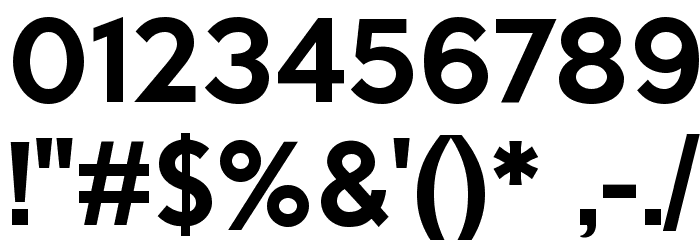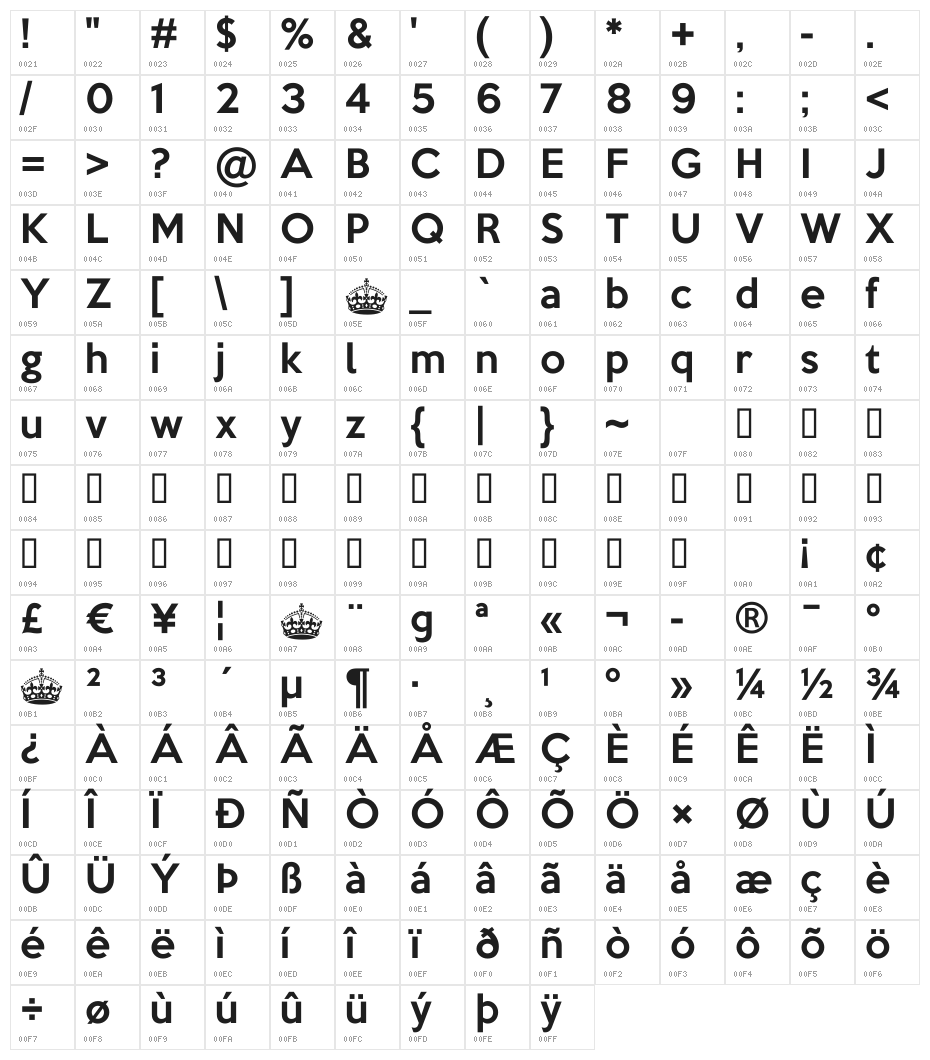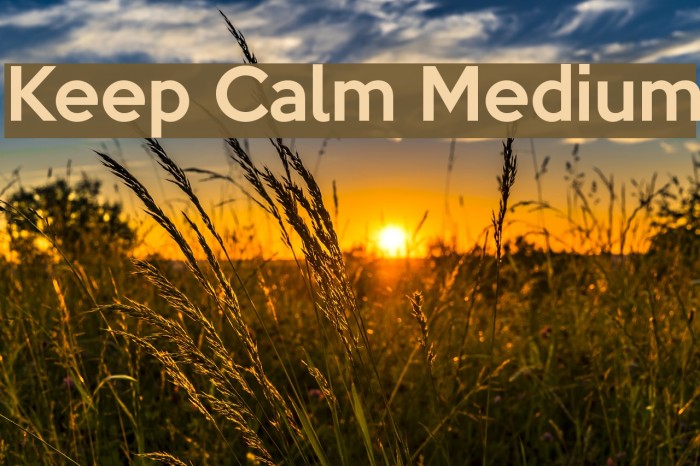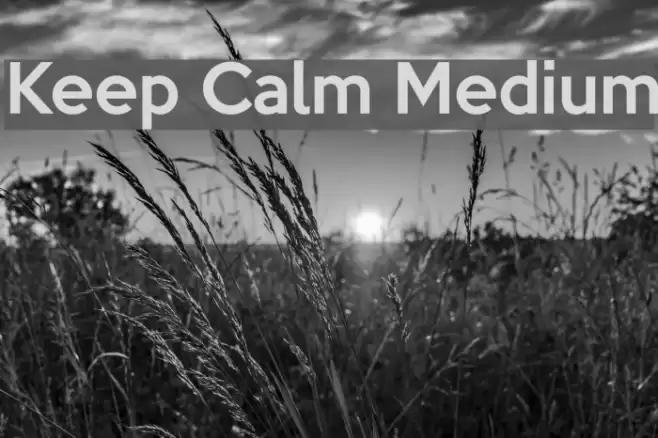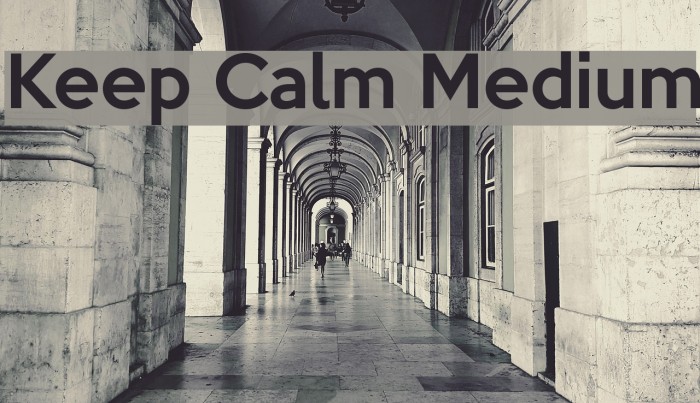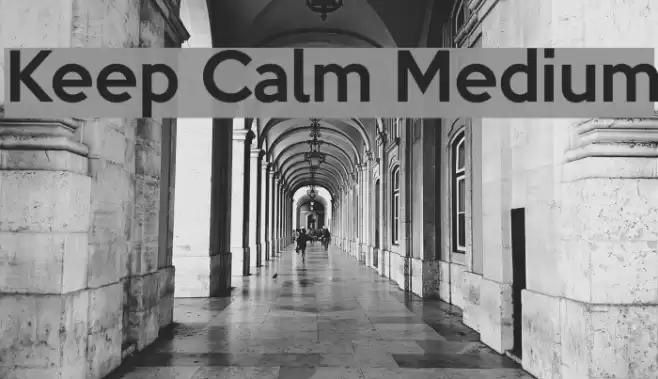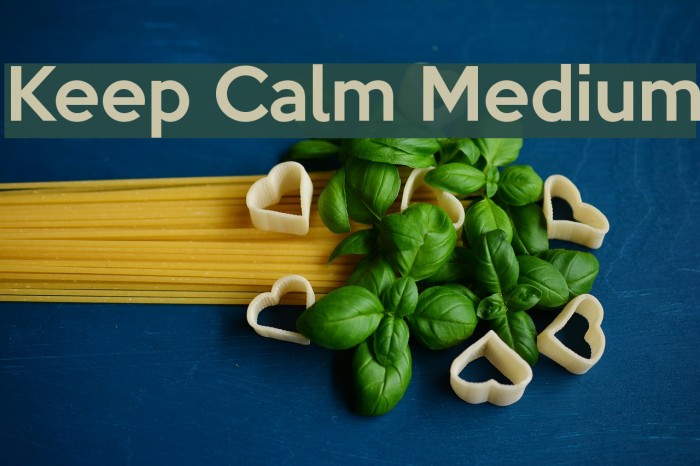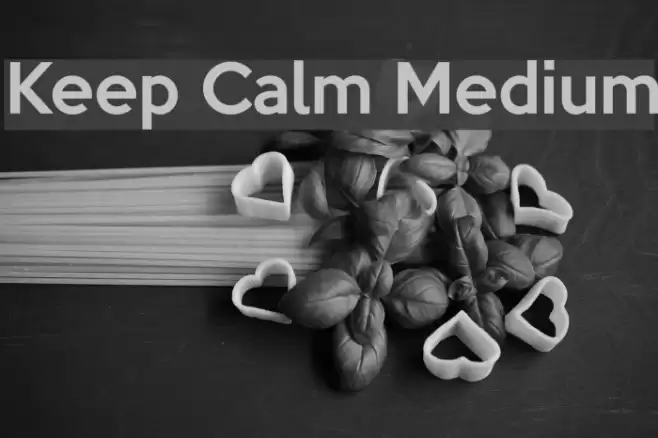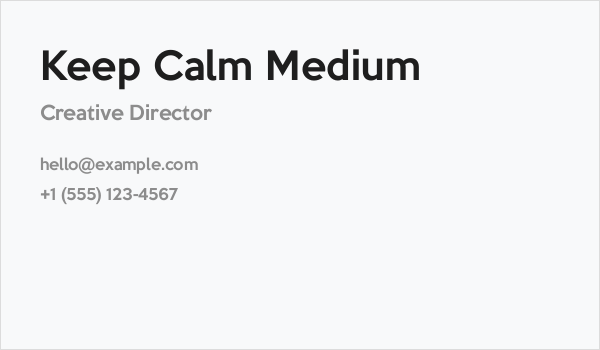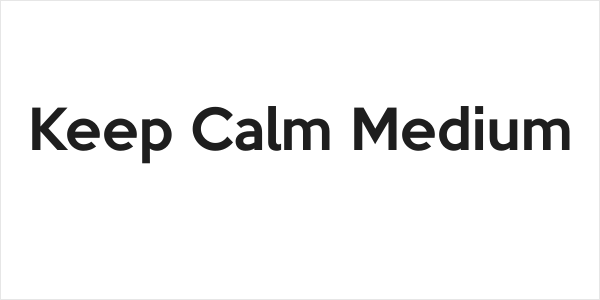
Keep Calm Medium Font
Keep Calm Medium Description
This font features a clean and modern sans-serif design with uniform stroke widths, offering a balanced and professional appearance. The characters are well-proportioned, with a slightly rounded finish that adds a touch of friendliness to the overall look. The uppercase letters are bold and assertive, while the lowercase letters maintain a consistent style, enhancing readability. The numerals are clear and distinct, making them suitable for various applications. Special characters are included, providing versatility for different design needs. This font is ideal for projects that require a contemporary and approachable aesthetic.
| Proposed Projects | Ideal for branding, advertising, web design, and editorial projects that require a modern and approachable look. |